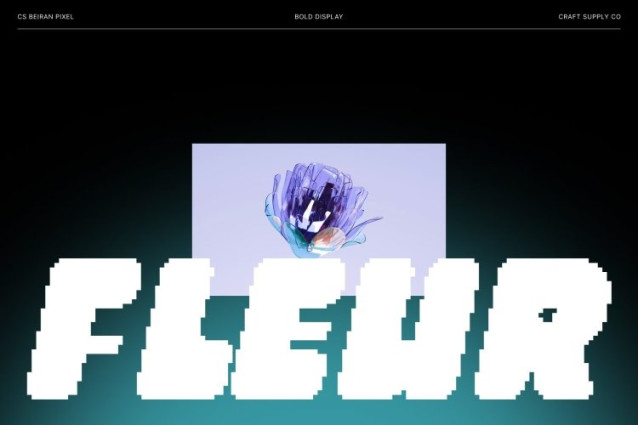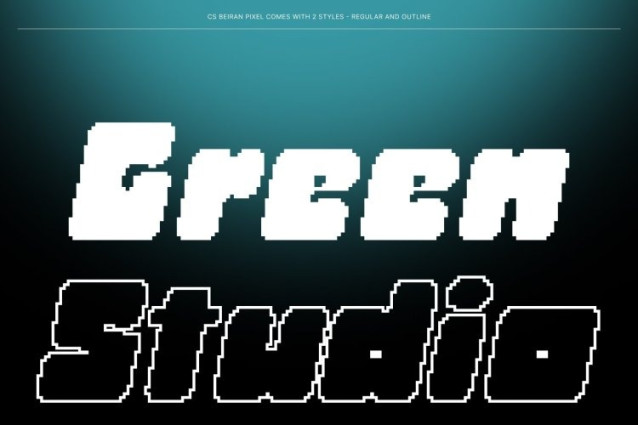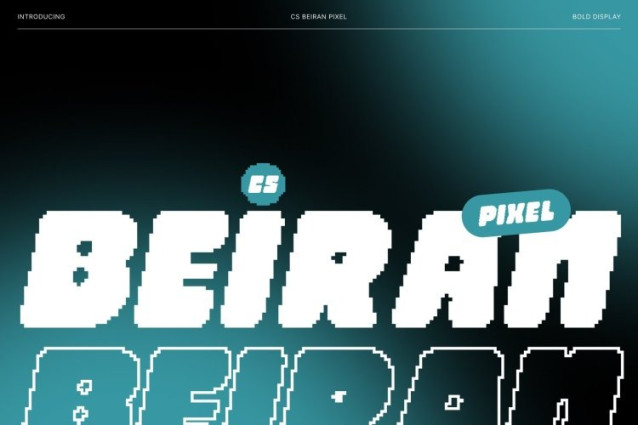
CS Beiran Pixel Font
CS Beiran Pixel Font This is a bold, chunky display font designed to deliver instant visual impact through a distinctive pixel-based construction. Its blocky letterforms feel confident and solid, while the pixel style introduces a nostalgic 8-bit character inspired by classic digital screens and retro games. This combination creates a font that feels playful, bold, and unmistakably eye-catching.
Thick Strokes with Old-School Digital Impact
Built with thick strokes and structured pixel geometry, this font offers strong legibility and a commanding presence. The pixel grid reinforces a vintage digital look, evoking early computer graphics and arcade aesthetics. This makes the font ideal for headlines, posters, and titles that need to stand out with bold clarity and retro charm.
Retro Fun Meets Modern Confidence
This font balances nostalgic appeal with modern design sensibility. While its pixel construction delivers an old digital, 8-bit vibe, the clean proportions and confident weight keep it relevant for contemporary use. The result is a font that feels fun, funky, and expressive without sacrificing strength or readability.
Perfect for Retro, Gaming, and Creative Designs
Ideal for pixel art projects, game visuals, playful branding, packaging, social media graphics, and retro-themed designs, this font brings bold energy to any composition. Whether you’re aiming for a nostalgic arcade feel or a modern retro-digital style, this font ensures your designs feel lively, memorable, and full of character.